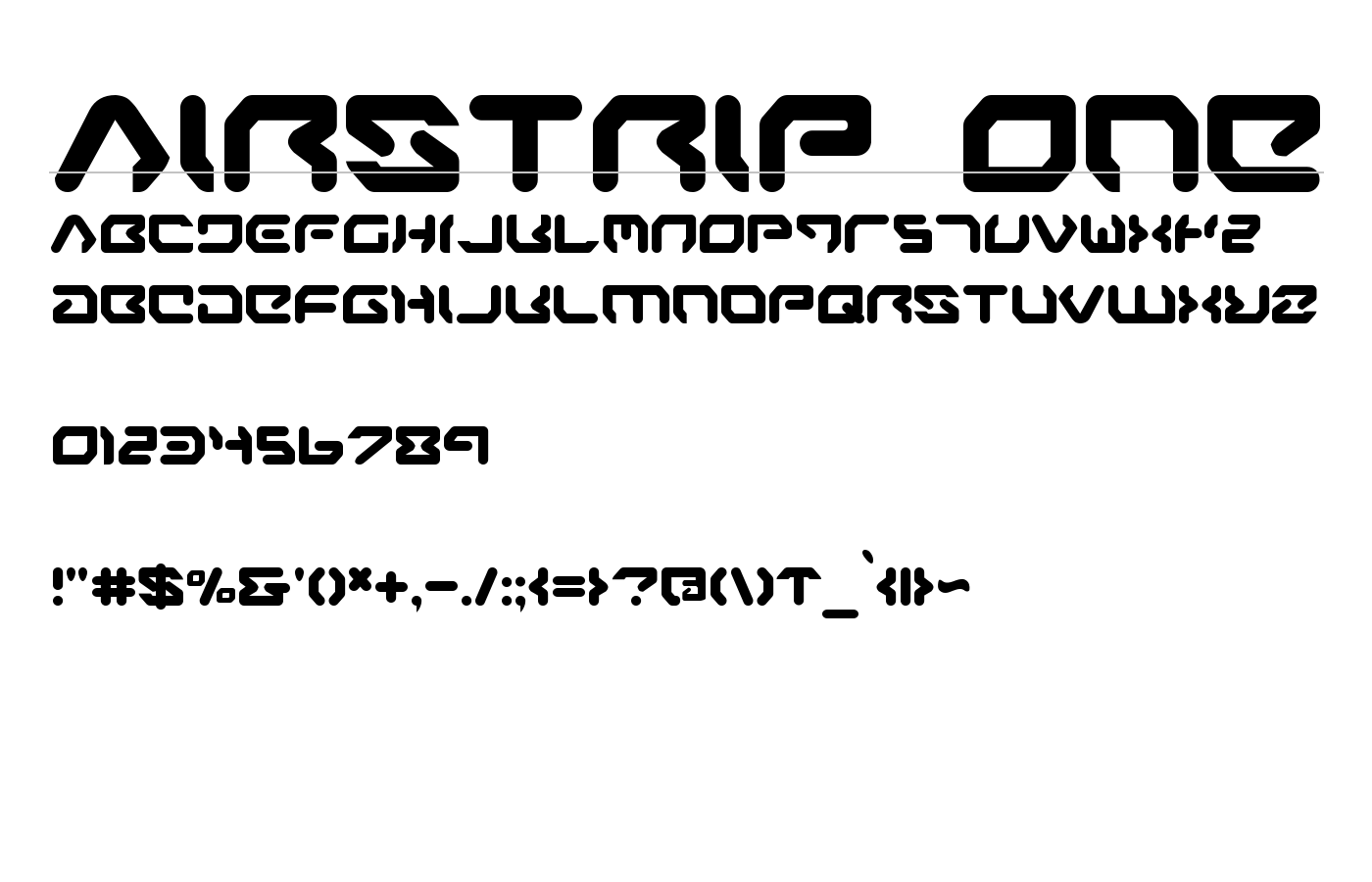
Airstrip One is a bold, futuristic sans serif font with a strong geometric and tech-inspired style. Its compact, angular letterforms with rounded terminals give it a unique sci-fi feel, making it ideal for cutting-edge branding, posters, and digital projects that seek a modern, innovative look. This font stands out best in headline and display uses where its distinctive character can grab attention.
Airstrip One Font
About Airstrip One Font